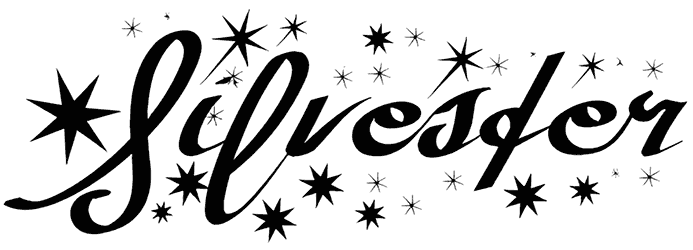
Silvester Font
Let us take this honor to introduce you to Silvester, a holiday font that comes with a sense of delicacy, softness, precision, and professionalism. This font is the result of adding an innovative touch to a casual script font, thus it can add a bit of personalization to your artwork including posters, gift cards, greeting cards, logos, and product packaging.